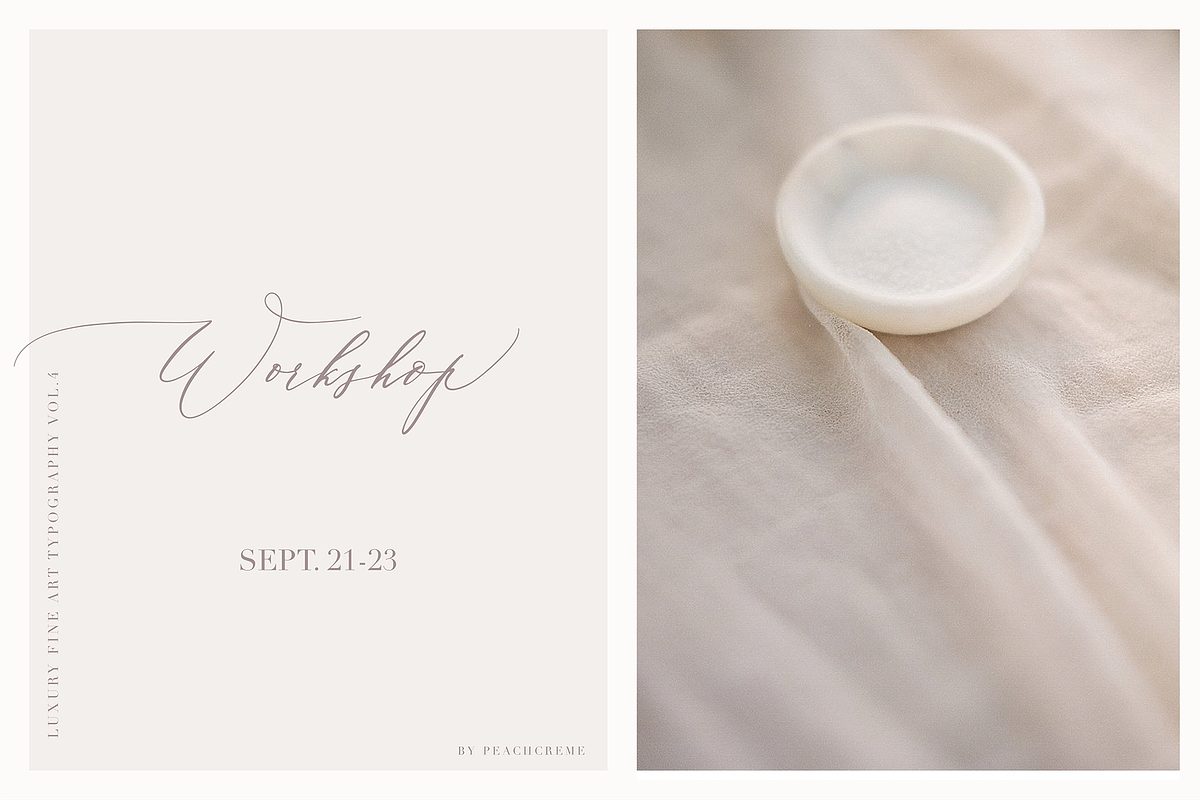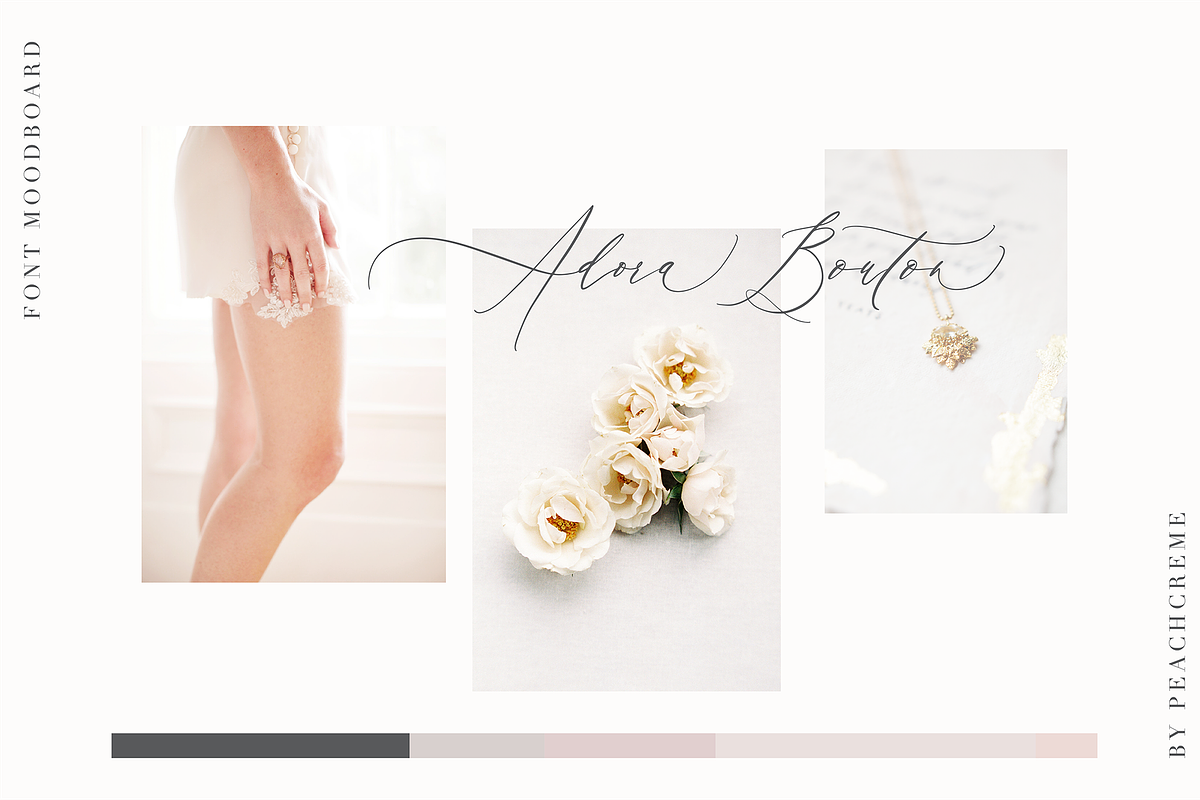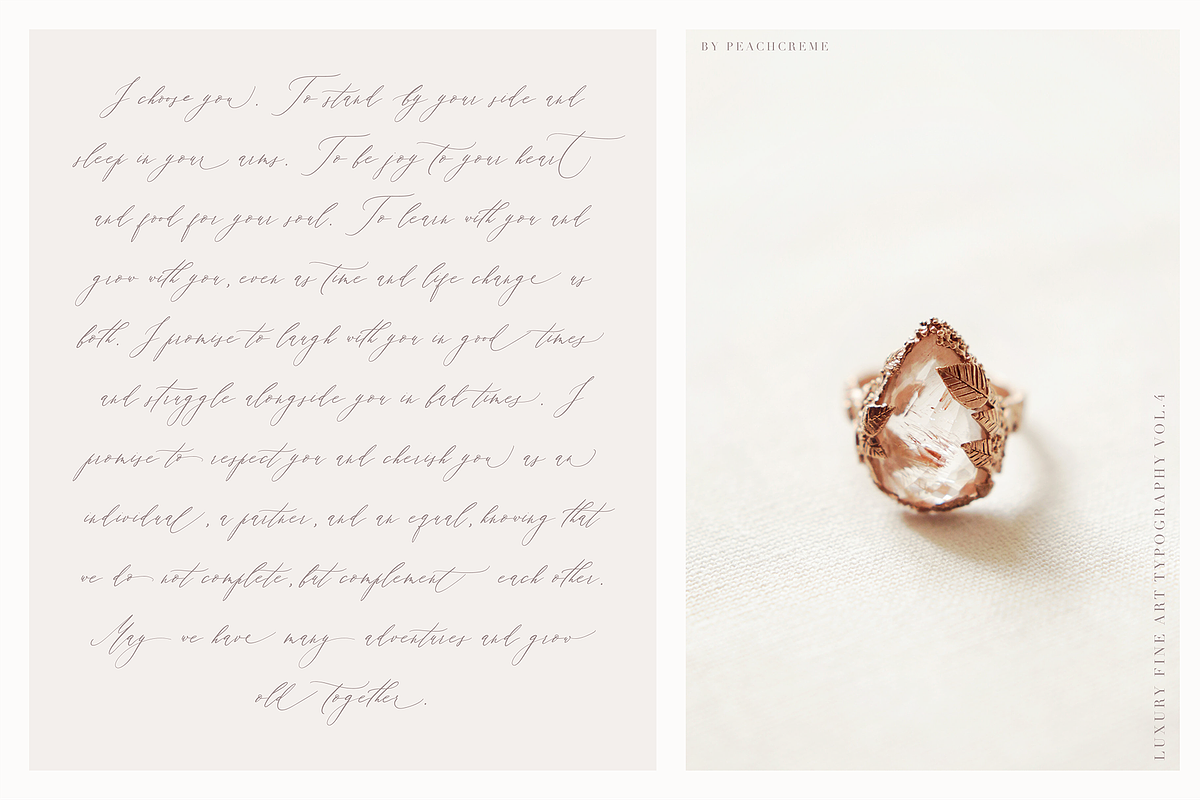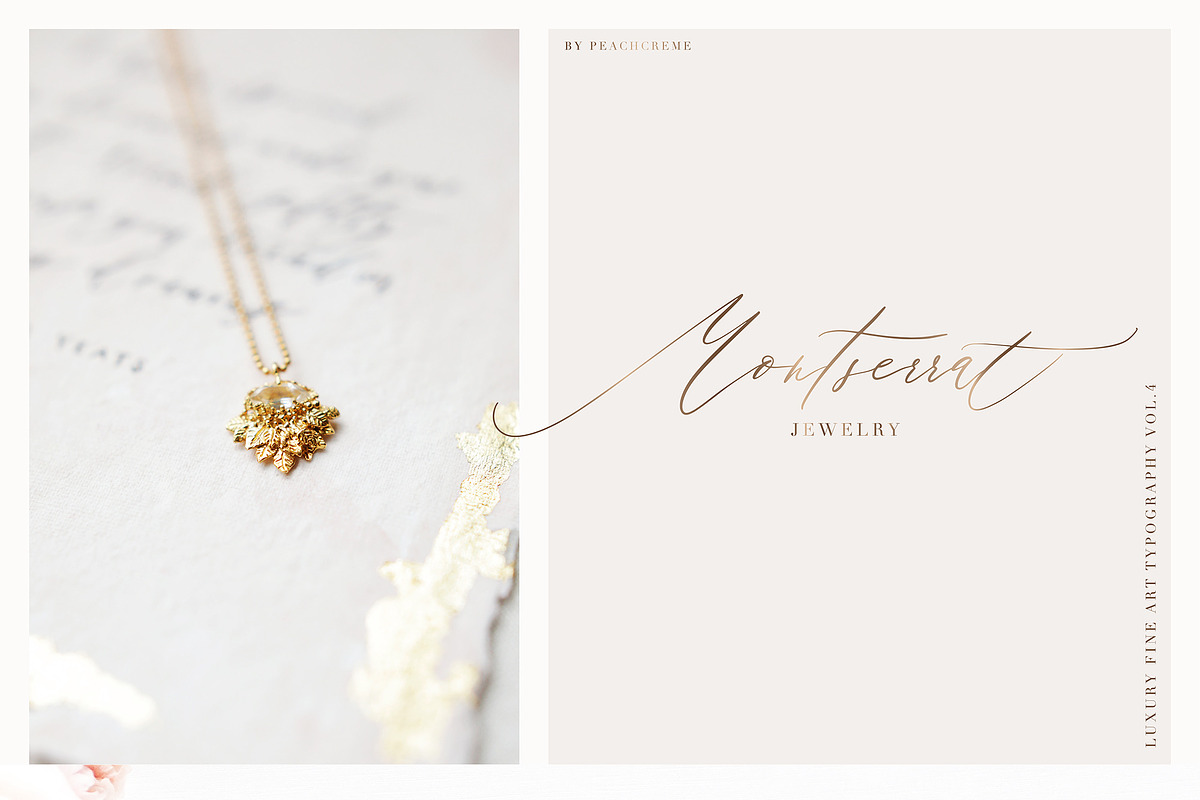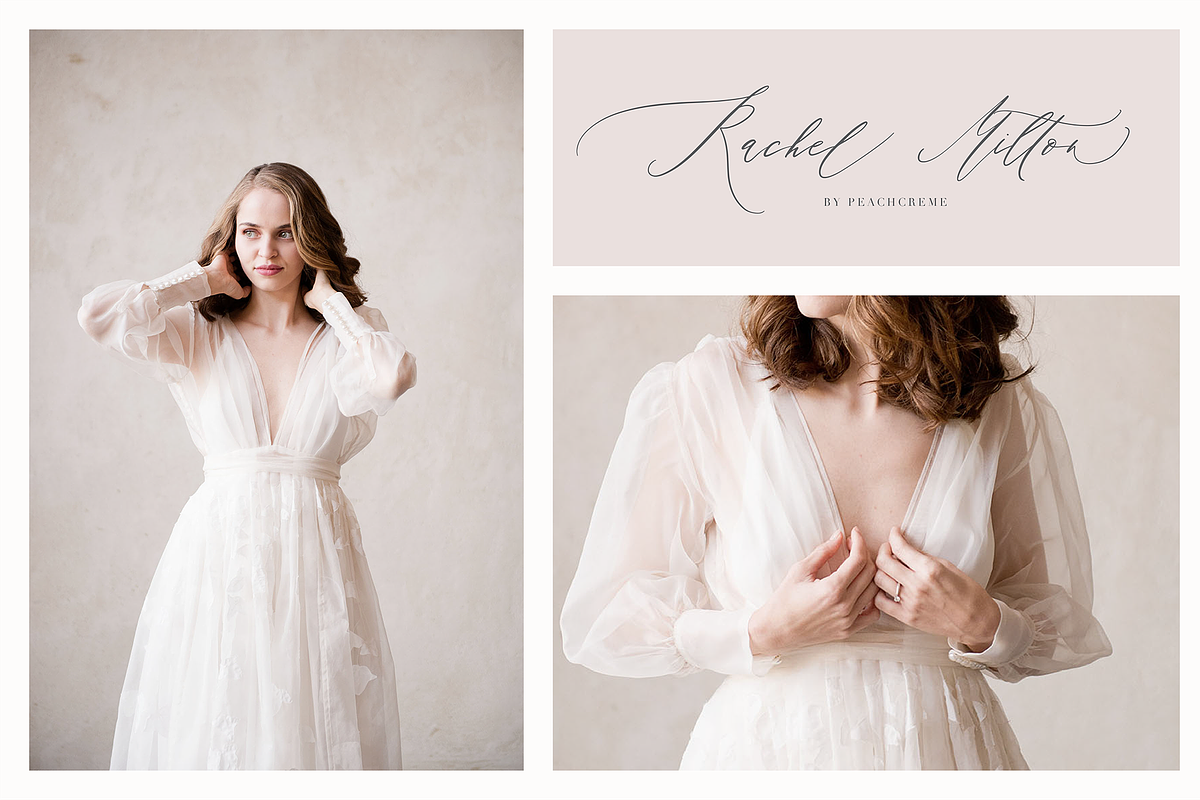
Adora Bouton is a crème de la crème modern calligraphy font with contemporary, sophisticated accents. It is perfect for branding, wedding invites and cards, and maybe for red wine label.
The font includes a full set of gorgeous uppercase and lowercase letters, numerals, a large range of punctuation and ligatures.
All lowercase letters include beginning and ending swashes, giving a realistic hand-lettered style. All uppercase letters include beginning swashes, which makes the font look fabulous!